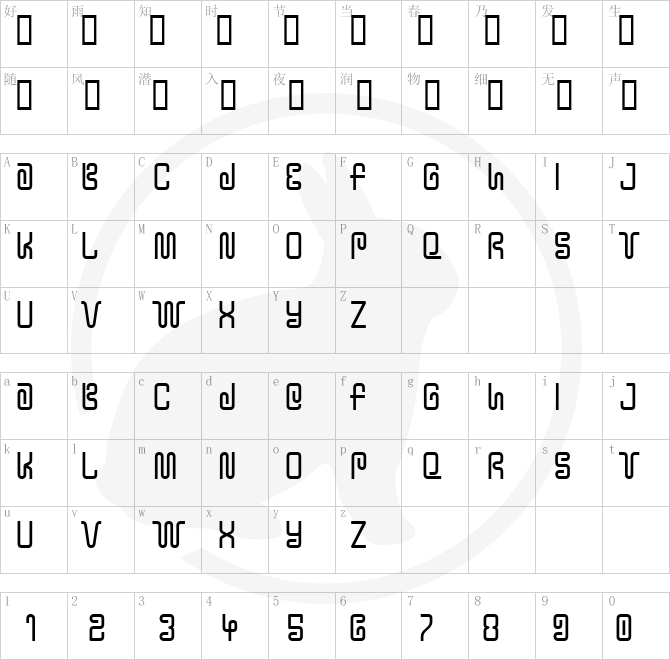
!Y2KBUG.ttf is a very beautiful artistic font, !Y2KBUG.ttf is widely used in the design and printing of various books and pictures,!Y2KBUG.ttf has a strong visual impact,!Y2KBUG.ttf is a commonly used font in newspapers, magazines and books, and is used in posters, e-commerce Poster design, store design, logo design, font design and other fields.!Y2KBUG.